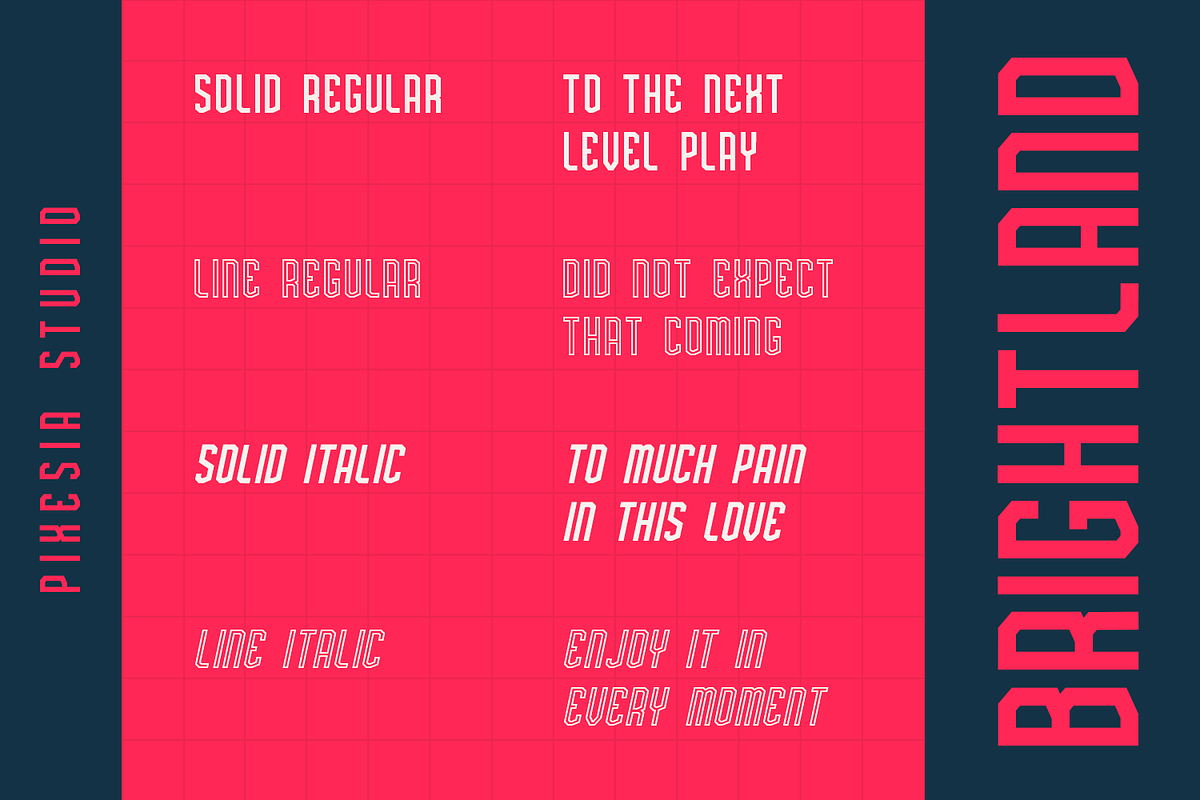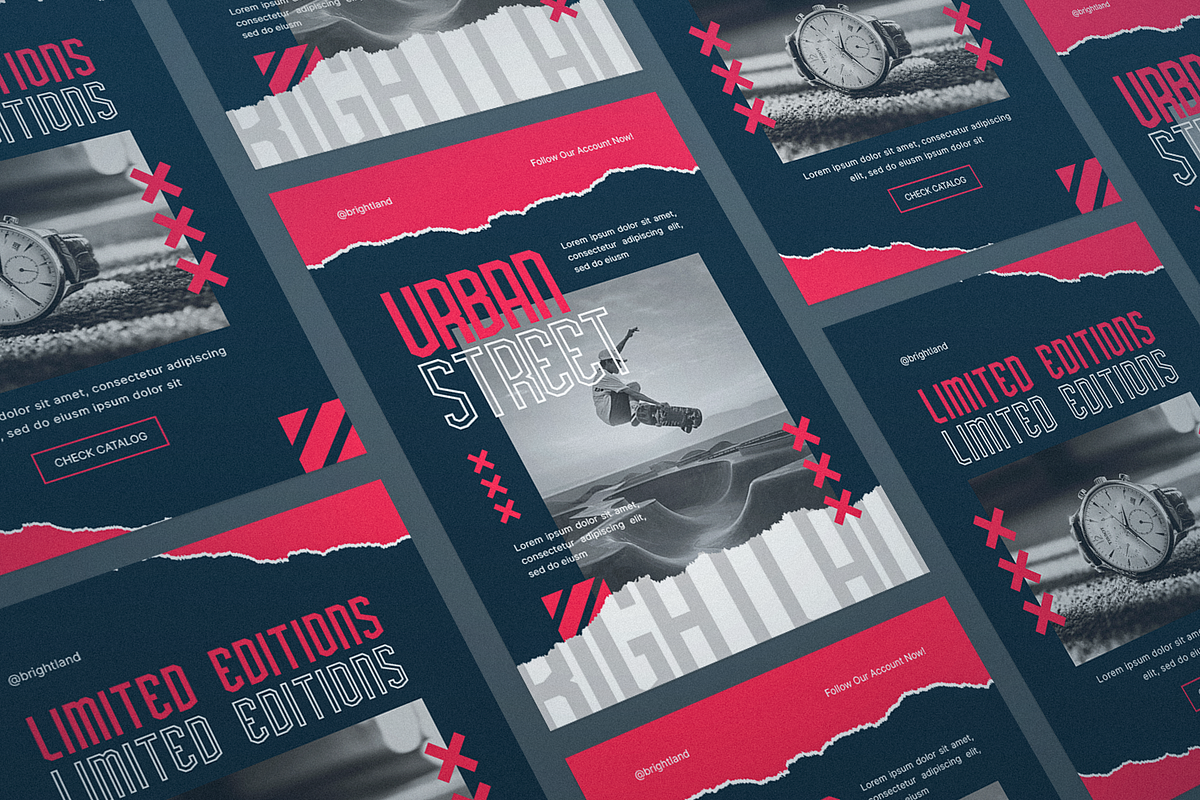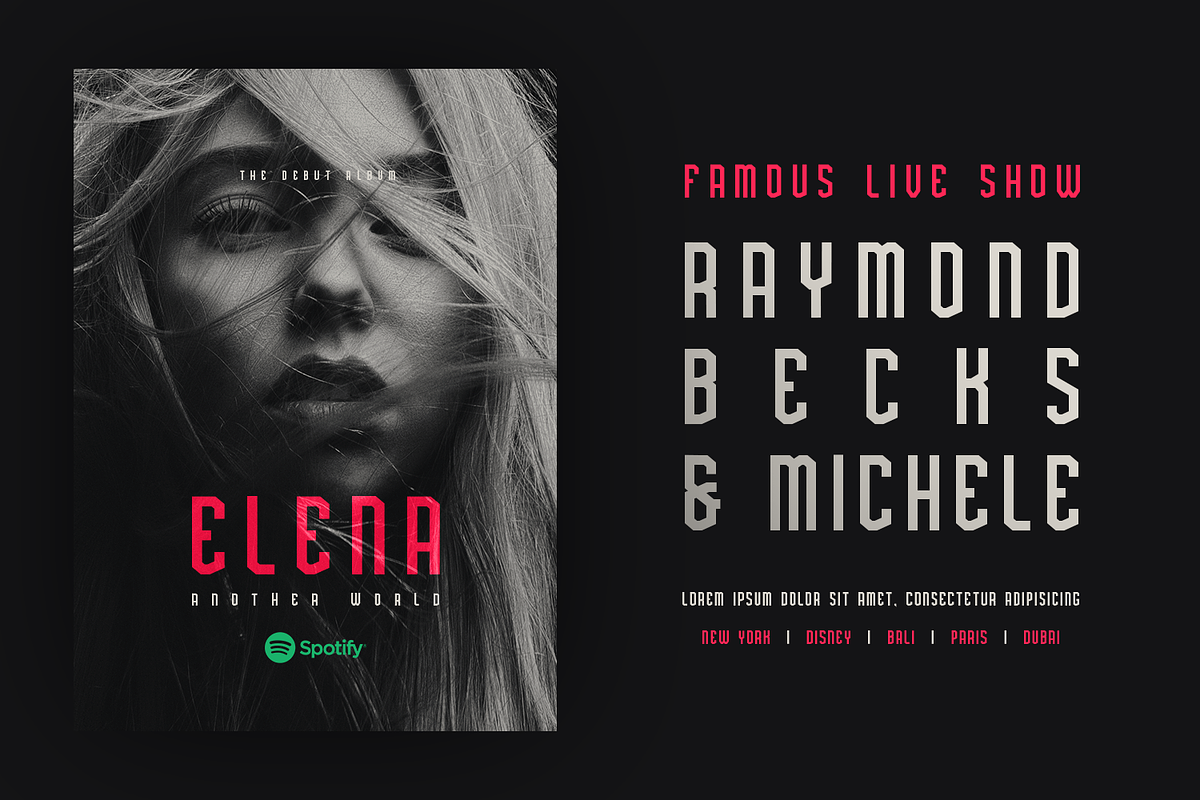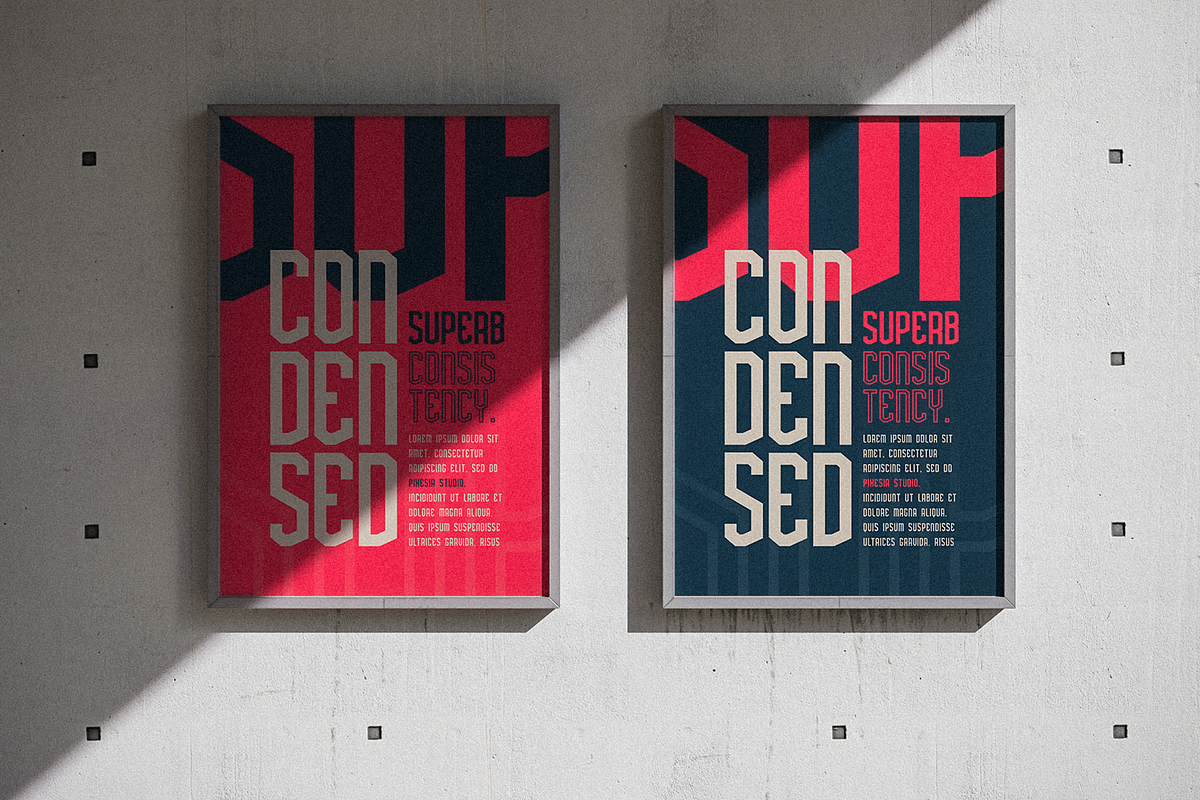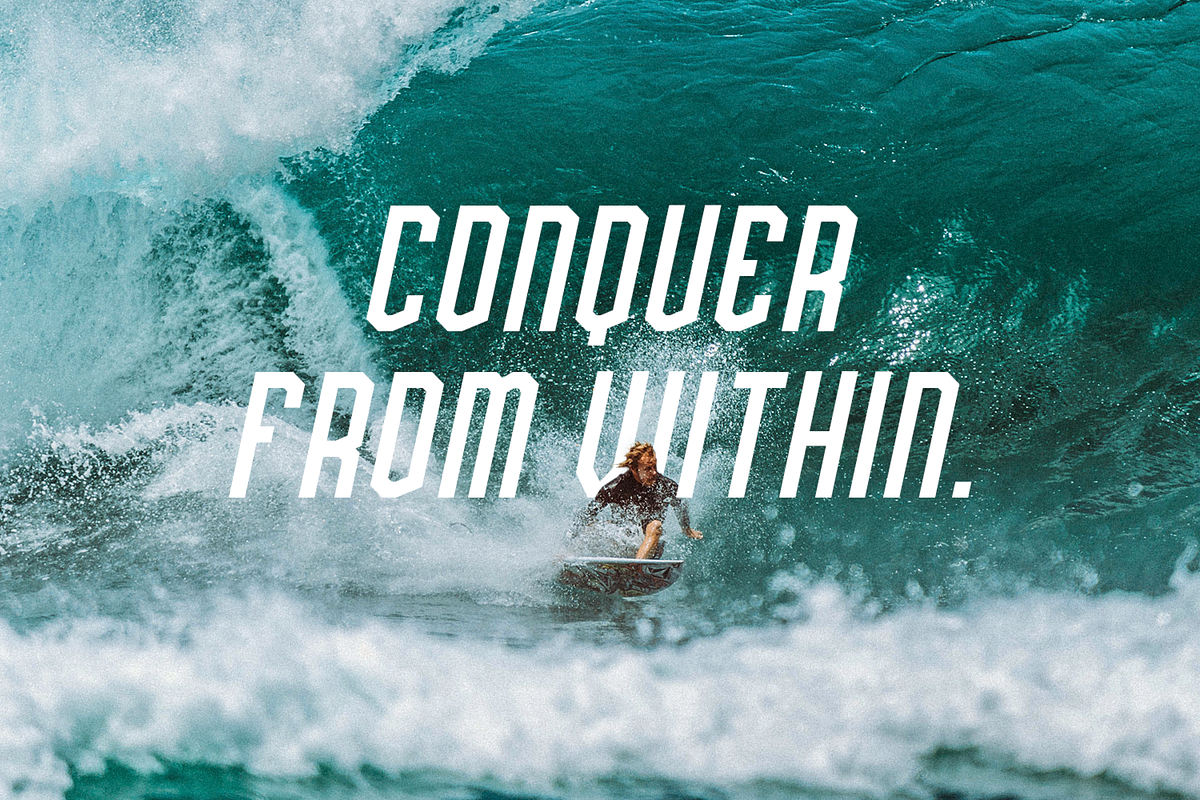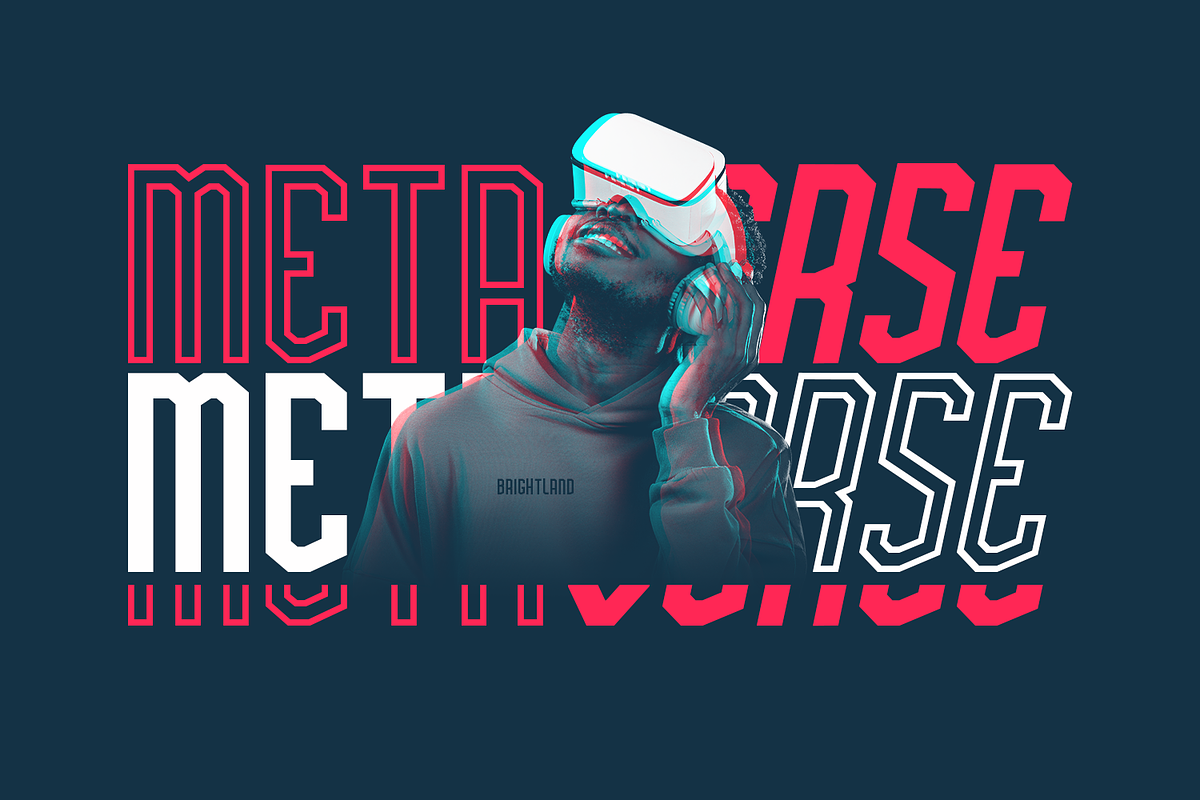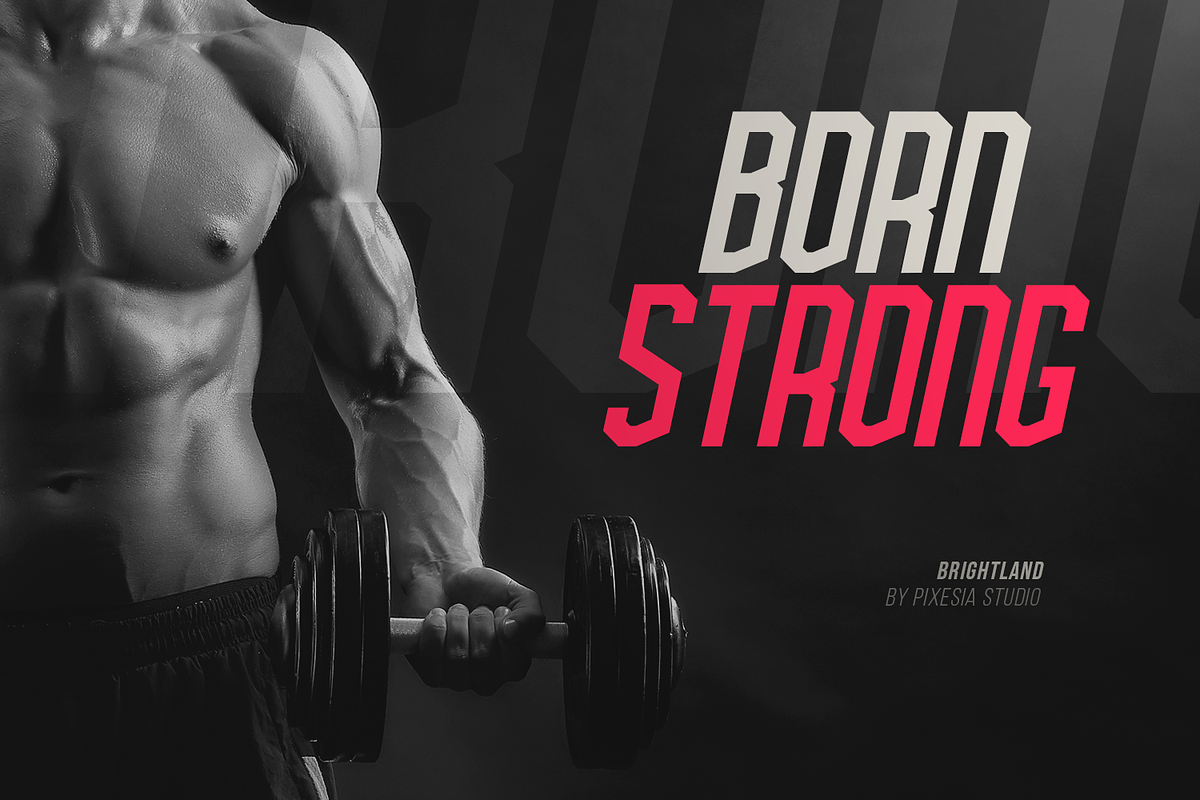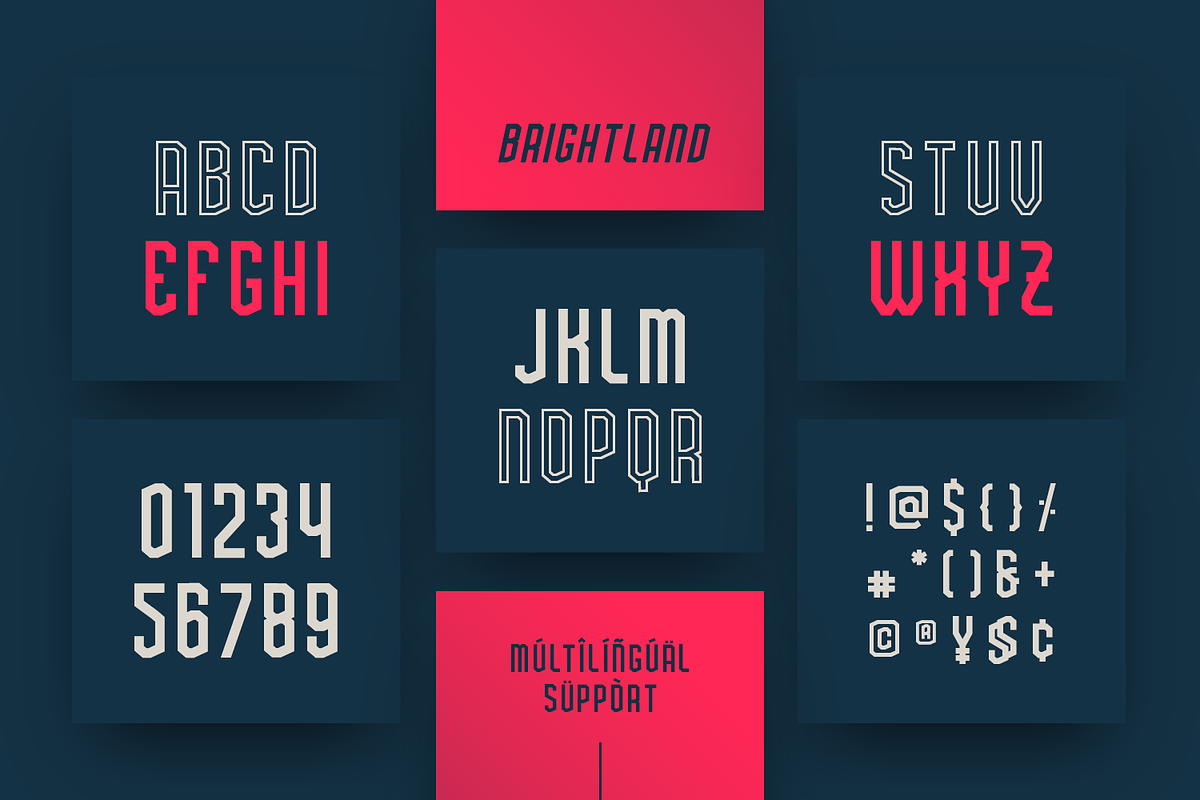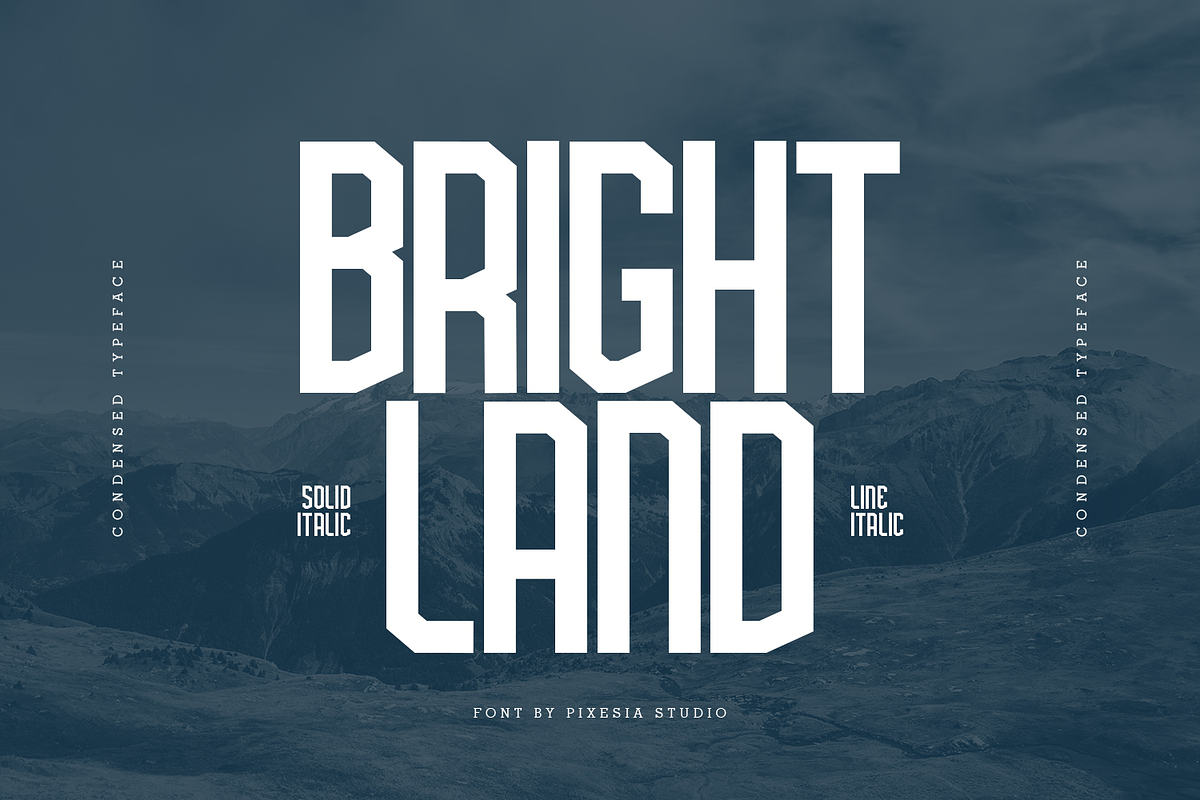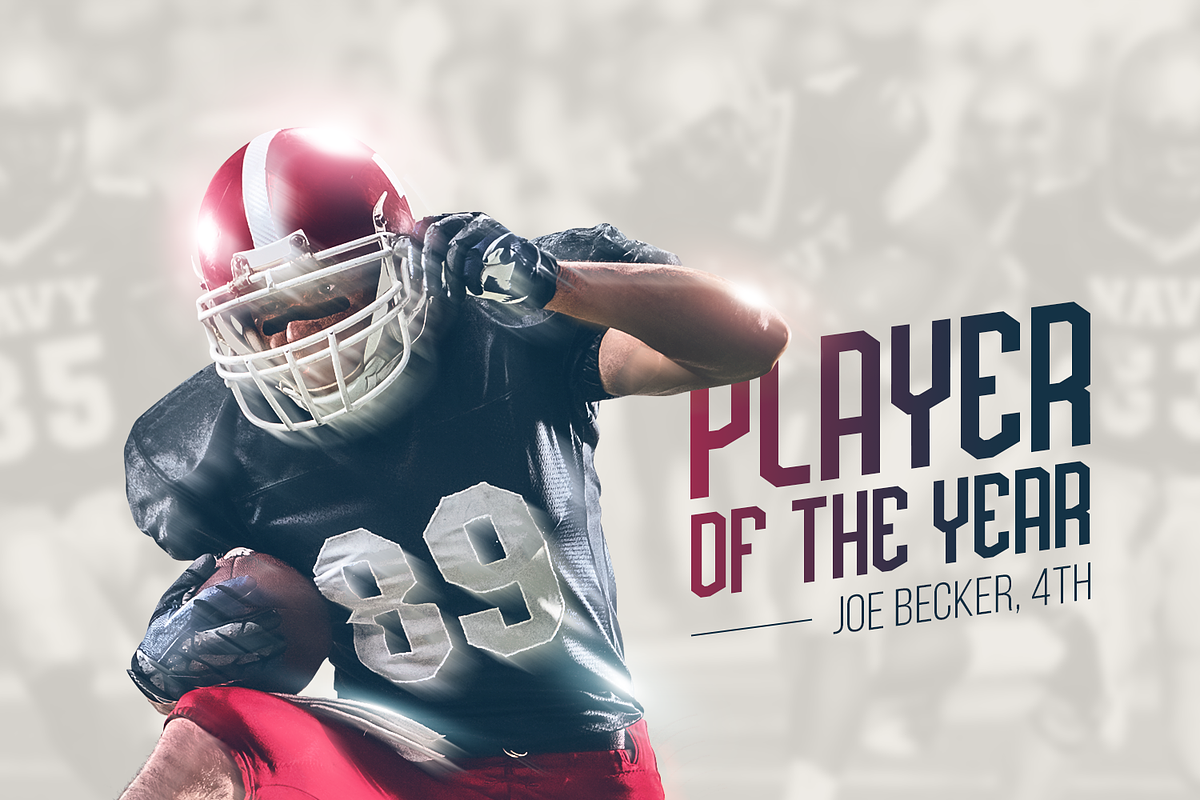
Brightland - Condensed Sans Serif
Introducing Brightland - Condensed Sans Serif Font
Brightland is a condensed sans serif font that comes in four distinct styles - solid, solid italic, line, and line italic. This versatile font is perfect for use in a wide range of design projects, including branding, advertising, and packaging. Its clean, modern aesthetic makes it suitable for use in a variety of settings, and its four different styles allow you to create a wide range of looks.
The solid style of Brightland is straightforward and uncomplicated, making it perfect for use in headlines and titles. The solid italic style adds a touch of flair, while the line style is light and airy. And the line italic style is perfect for creating a more playful, imaginative look.
- All Caps